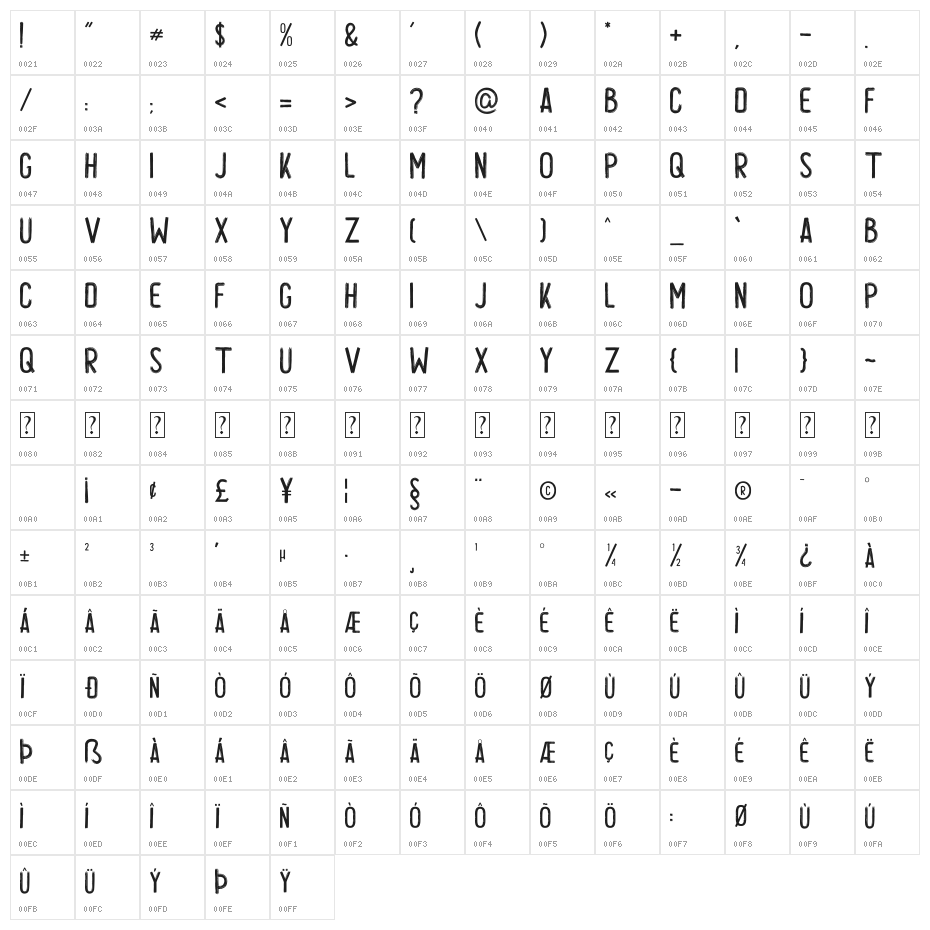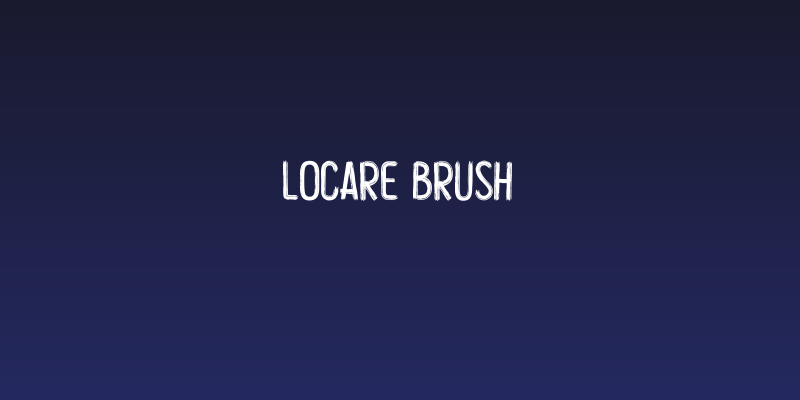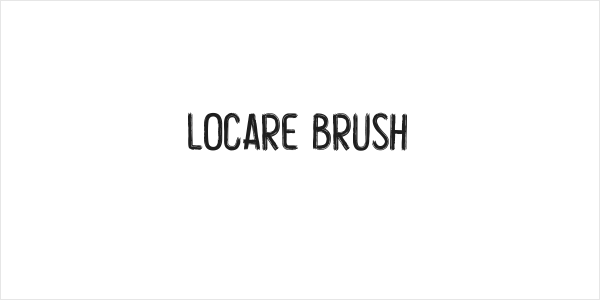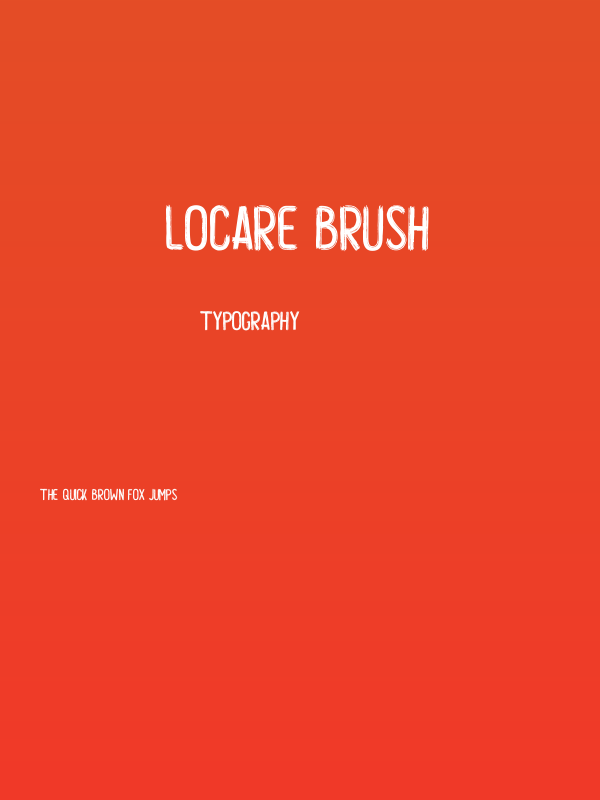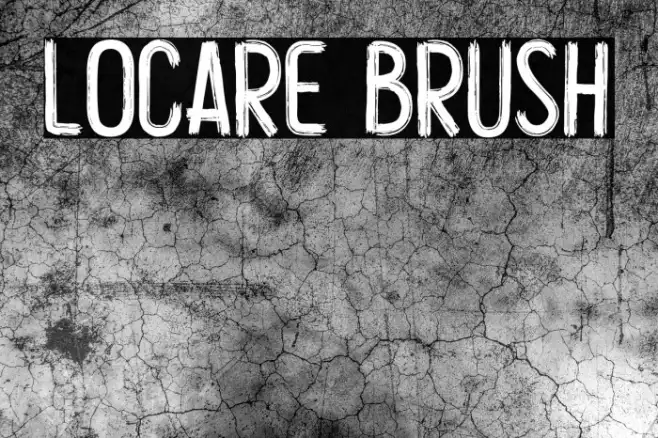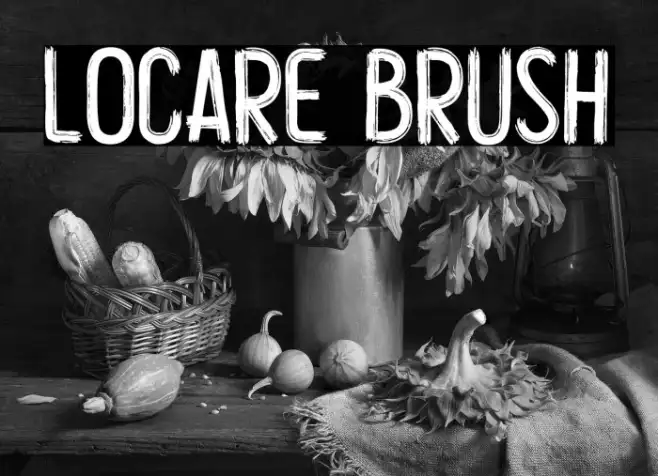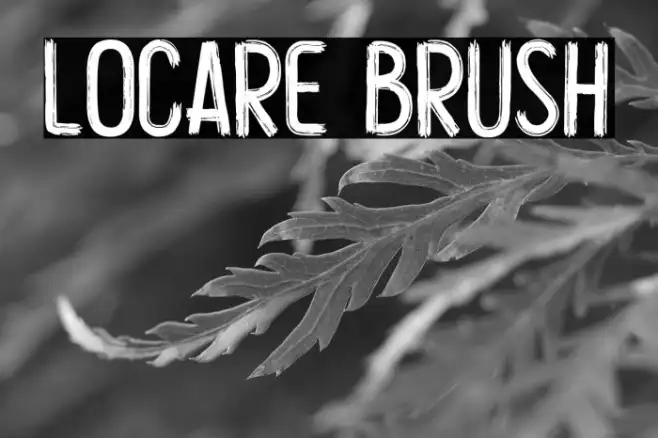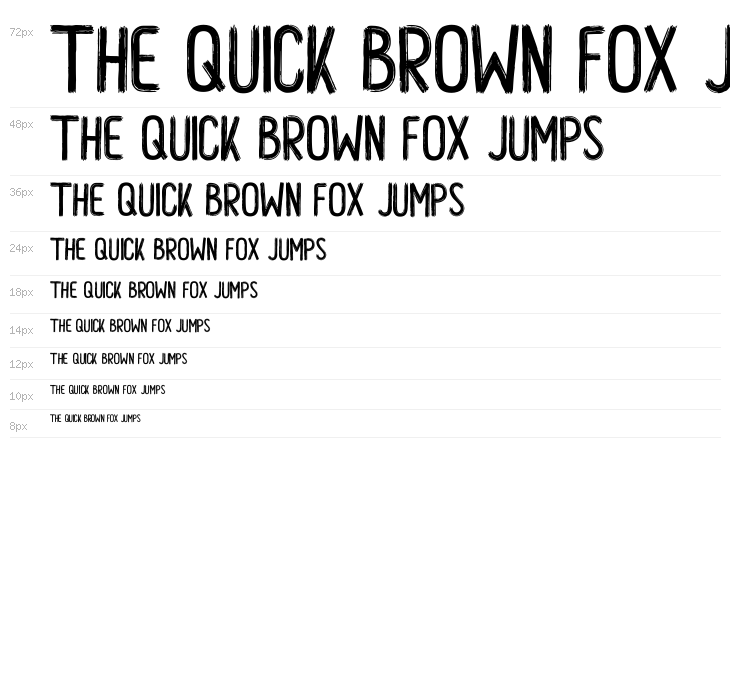
Locare Brush Font
Locare Brush Description
This font features a bold, brush-stroke style that exudes a sense of energy and dynamism. The characters are crafted with a rough, hand-painted appearance, giving them a unique and artistic flair. Each letter is distinct, with varying thicknesses that mimic the natural flow of brush strokes. The uppercase letters are prominent and commanding, while the lowercase letters maintain the same expressive quality. The numbers and special characters are equally bold, ensuring consistency across all elements. This font is perfect for projects that require a touch of creativity and individuality.
| Overall Style | Artistic, Energetic |
| Proposed Projects | Ideal for posters, branding, packaging, and any creative projects that require a bold statement. |